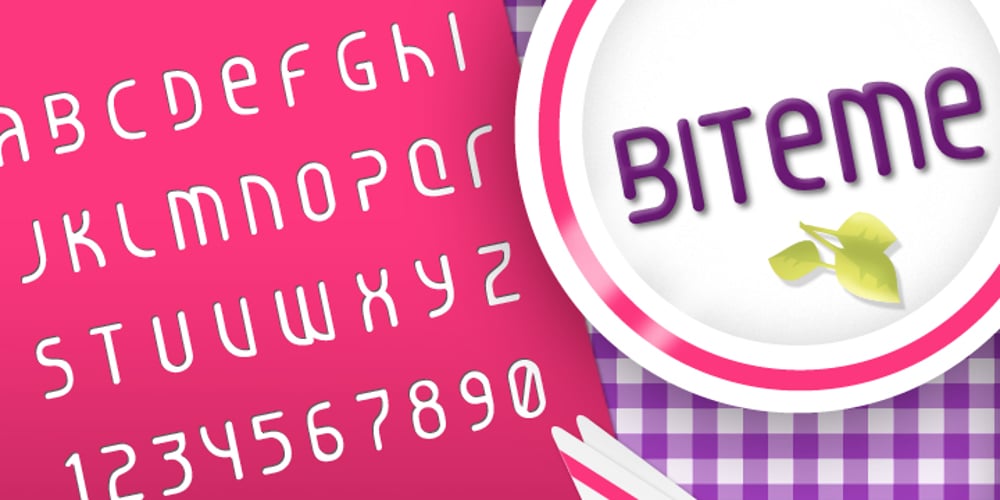
Biteme Font Family was designed by Guilherme Rizzatti, Makoto Saito, Alexandre Venancio and published by Oporto Design. Biteme contains 1 styles and family package options. Biteme is a modern, timeless font.